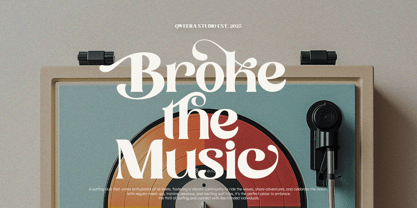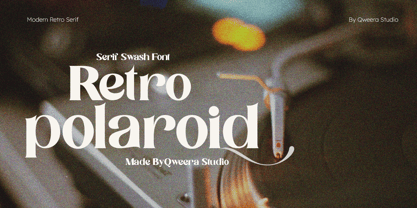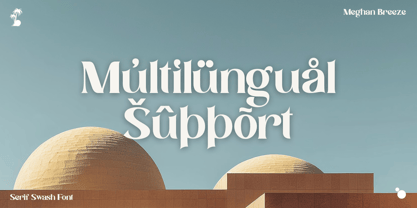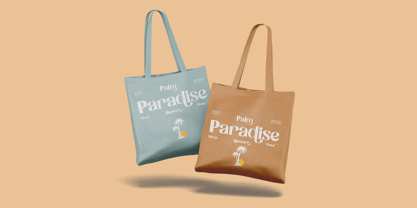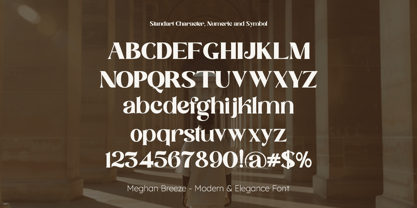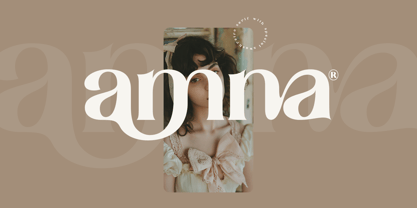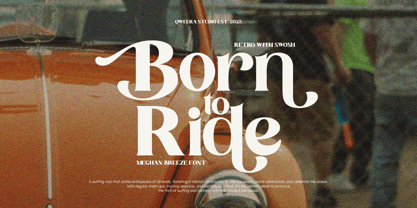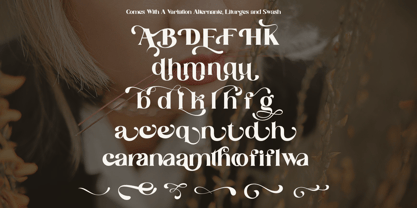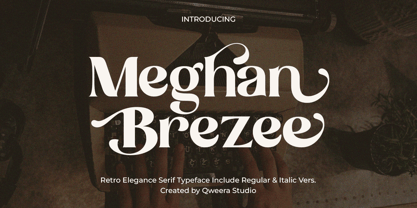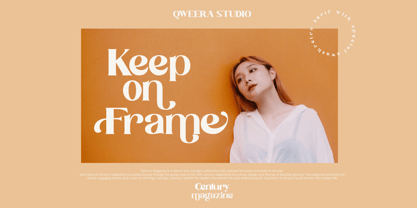
Meghan Breeze
by Qweera Studio
The Meghan Breeze Font Family was designed by Idhham Cholid Rikzano Yahya and published by Qweera Studio. Meghan Breeze contains 2 styles and family package options.
Meghan Breeze is a unique retro serif typeface, blending vintage charm with modern sophistication. Available in both Regular and Italic styles, this font is enriched with stylish alternates and ligatures to provide endless creative possibilities.
Perfect for branding, posters, magazines, and premium print designs, Meghan Breeze effortlessly elevates your projects. Its retro-inspired aesthetics and versatile features make it the ideal choice for designers seeking a blend of nostalgia and elegance.
Create standout designs with Meghan Breeze and add a timeless touch to your creative works.
• Regular & Italic
• All Multilingual symbol
• Opentype features ( ligature, alternate )
Multilingual character supports : (Afrikaans, Albanian, Catalan, Croatian, Czech, Danish, Dutch, English, Estonian, Finnish, French, German, Hungarian, Icelandic, Italian, Lithuanian, Maltese, Norwegian, Polish, Portuguese, Slovenian, Spanish, Swedish, Turkish, Zulu)